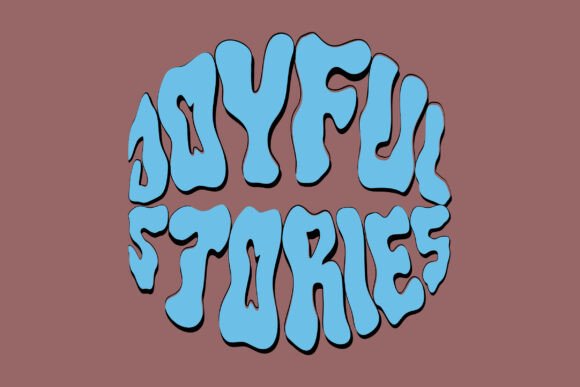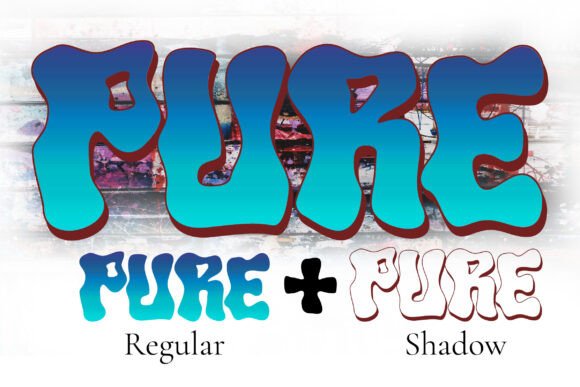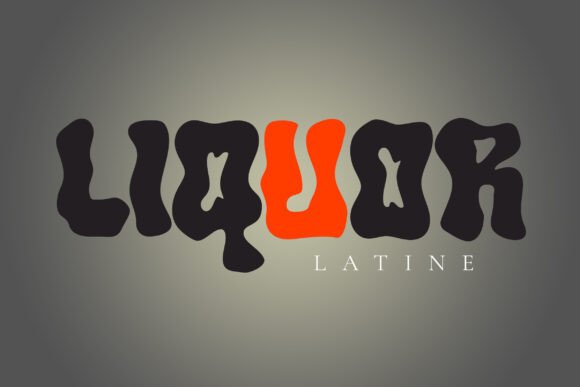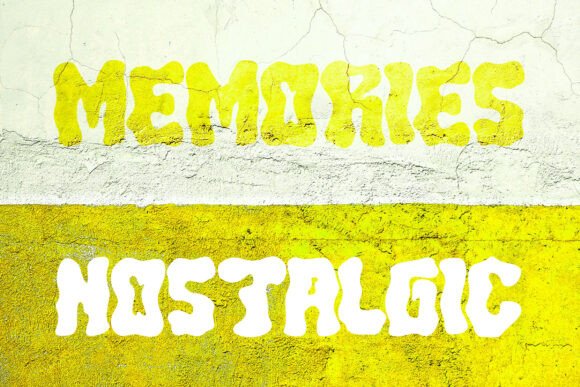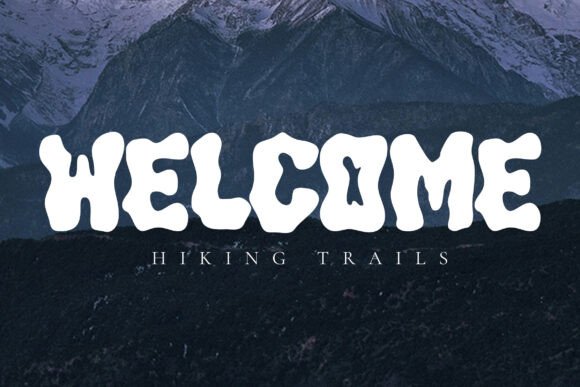
Introduction to Large Font
The moment you’re working on a design project and you need that one special font to elevate it to the next level – that’s when the magic happens. The spark of creativity ignites, and you’re on a quest to find the perfect font that will breathe life into your work. For designers, this is a familiar feeling, and it’s where Large Font comes in – a game-changing display font that’s been meticulously handcrafted to make your creative projects truly shine.
What sets Large Font apart is its unique blend of style and versatility. Whether you’re designing statement-making t-shirts, logos, or branding materials, this font seamlessly adapts to your needs, making it an invaluable resource for any designer.
Key Features of Large Font
- High-quality design resource with a transparent background, making it easy to integrate into any creative project.
Honest Review: Large Font
As a designer, I’m always on the lookout for high-quality design resources to enhance my creative projects. Recently, I had the chance to try out Large Font and here’s my honest review.
- ✨ High-quality typography: The font is crisp and clear, making it perfect for any design project.
- ✨ Versatile: The font can be used for both digital and print projects, giving you a lot of flexibility.
- ⚠️ Limited customization options: While the font itself is high-quality, there are limited options for customization, which might be a drawback for some designers.
- ⚠️ Not ideal for small text: Due to its size, Large Font might not be the best choice for small text or body copy.
Overall, I’m impressed with Large Font. It’s a great addition to any designer’s toolkit, and I’d definitely recommend it for creative projects that require high-quality typography. Just keep in mind its limitations, and you’ll be all set for a successful design project.
Large Font: A Design Resource for Your Creative Project
Large Font is commonly used in presentations, posters, and flyers to draw attention to key information or to create a bold visual effect. It’s also useful for creating headings and titles in a design project.
Tips for Getting the Most Out of Large Font
When using Large Font, be sure to choose a font that is clear and easy to read, even at a large size. You should also consider using a transparent background to make the text stand out. Additionally, be mindful of the overall design and balance of your project to ensure that the Large Font doesn’t overwhelm the other elements.